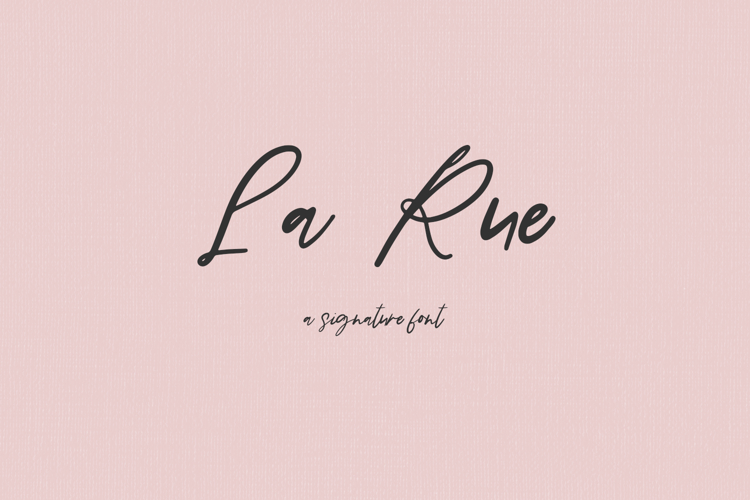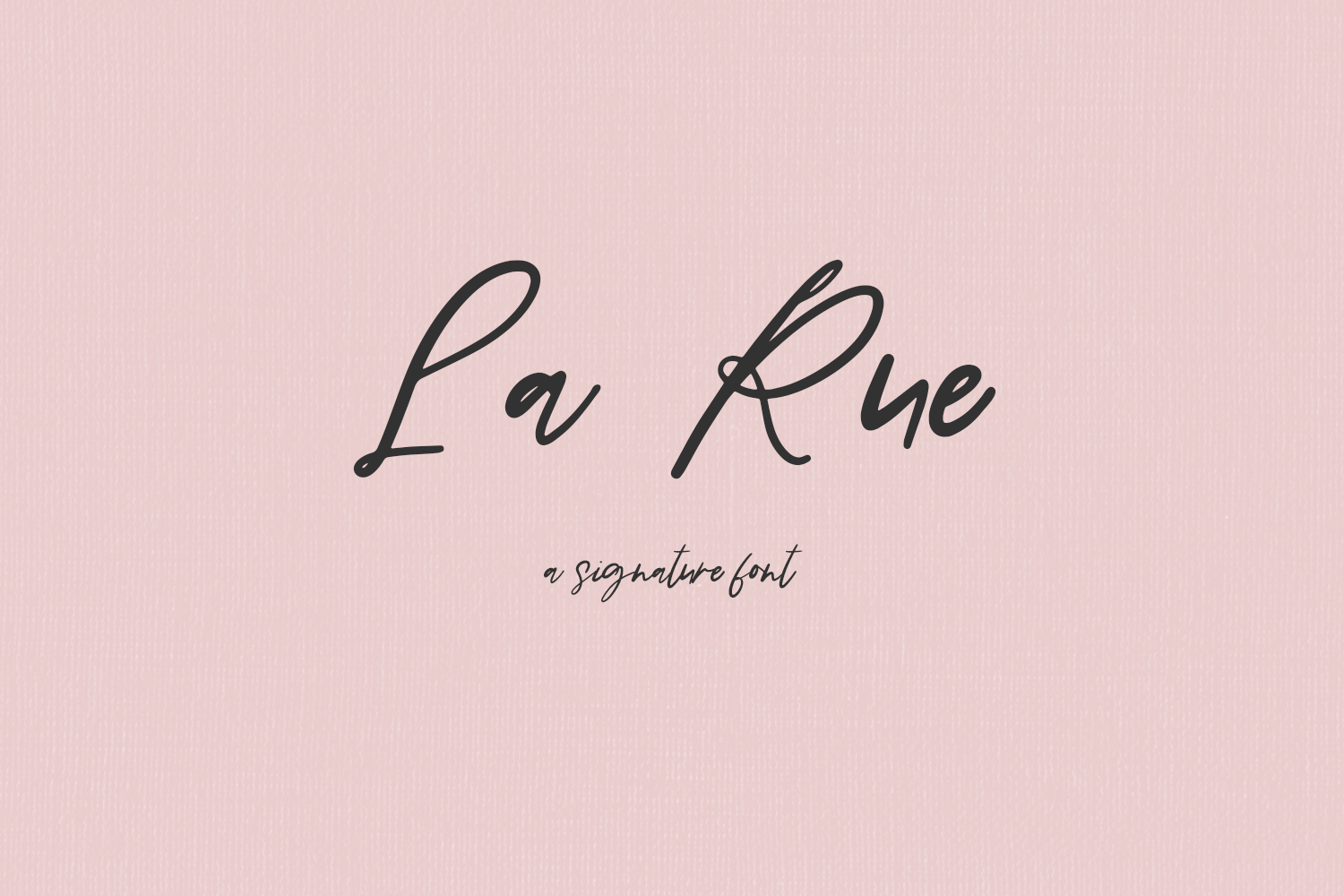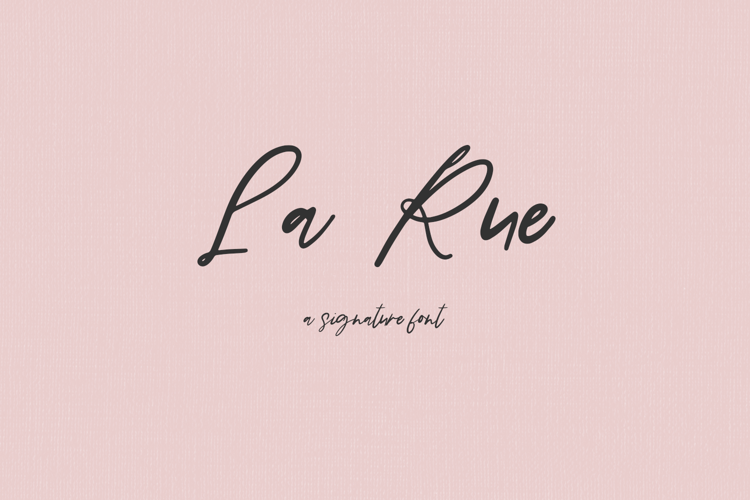
Meet La Rue Script, a new signature font. La Rue’s modern aesthetic makes it a perfect fit for effortlessly designing logos & branding, elegant paper products like wedding invitation suites. La Rue can also be used for other print design like headlines for magazines and flyers or printed marketing materials. This font can also be used for digital marketing materials and social media items!
- 14 ligatures - bb, cc, dd, ee, ff, gg, ll, mm, nn, oo, pp, rr, ss, tt